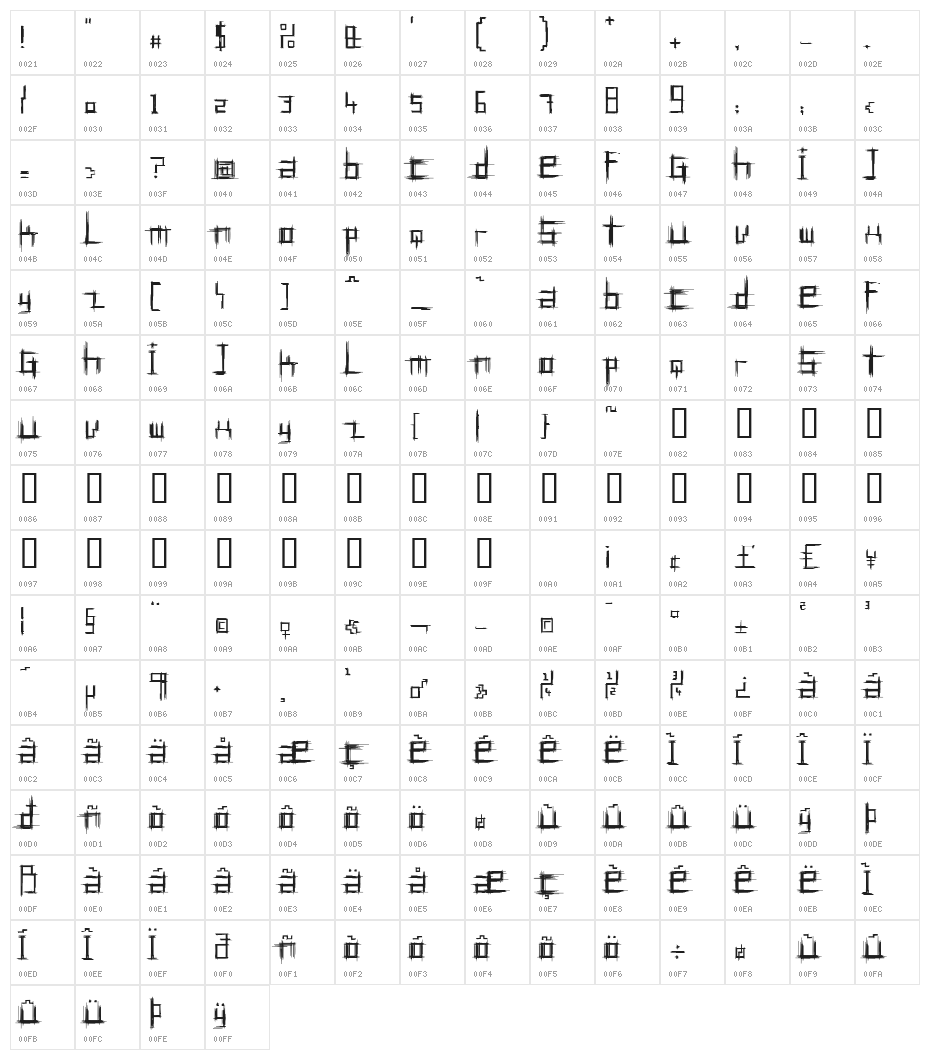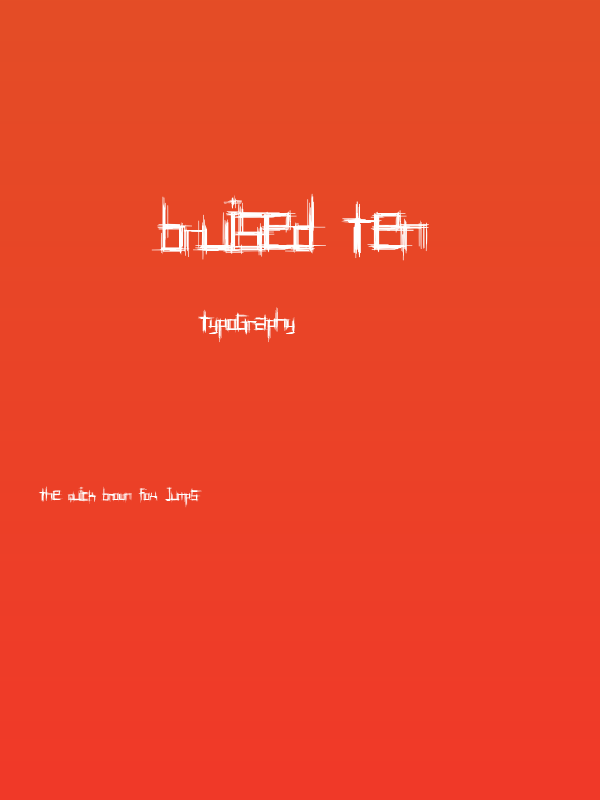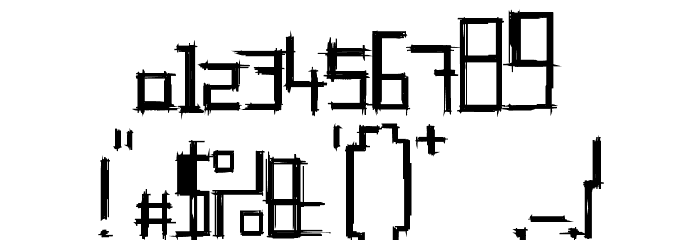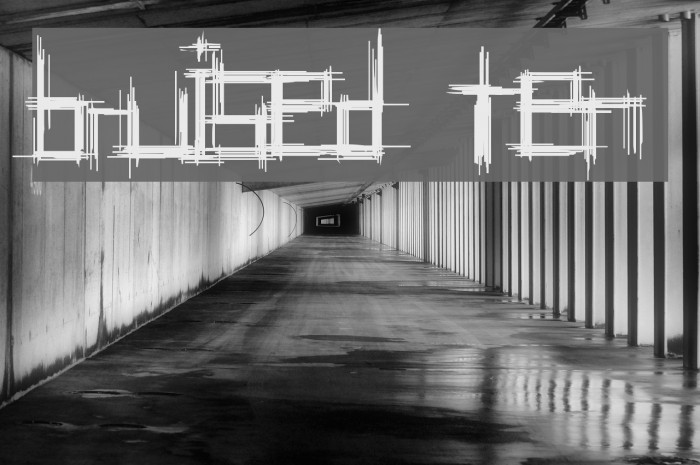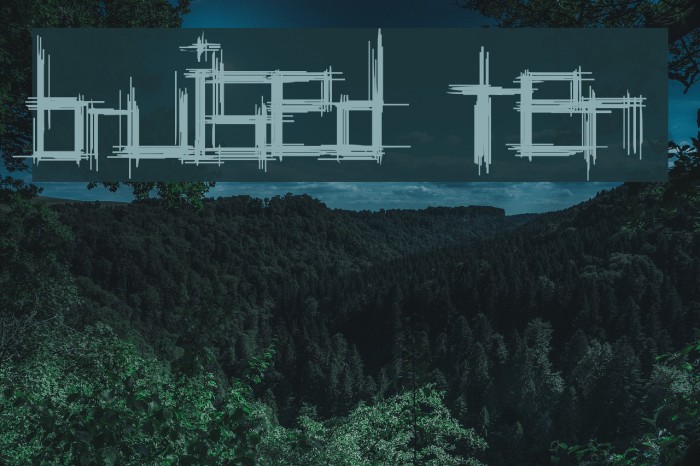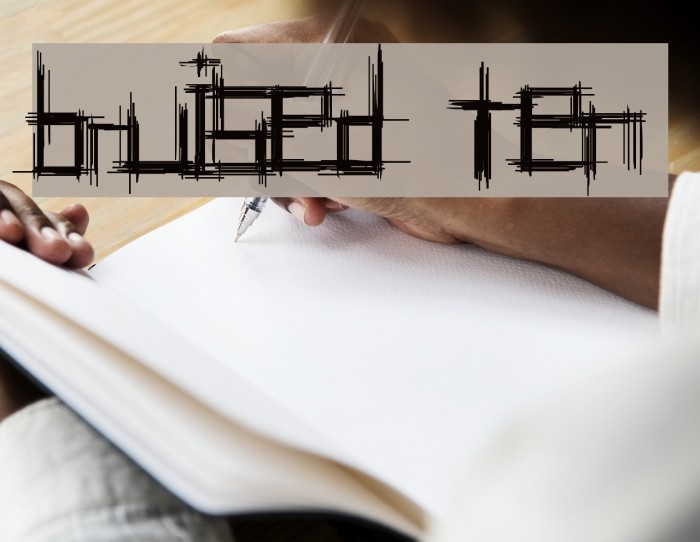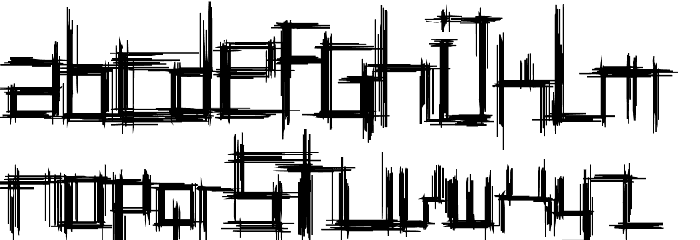
Bruised Ten Font
Bruised Ten Description
This font exhibits a highly distressed and grungy aesthetic, characterized by its rough, sketch-like lines and uneven strokes. The letters appear as if they are hastily drawn with a marker, giving them a raw and edgy feel. The uppercase and lowercase letters maintain a consistent height, contributing to a uniform appearance despite the chaotic line work. Numbers and special characters follow the same rugged style, ensuring cohesion across all elements. This font's unique texture and appearance make it stand out, ideal for projects that require a bold and unconventional look.
| Overall Style | Grunge, Edgy |
| Proposed Projects | Ideal for album covers, street art-inspired designs, edgy posters, and alternative branding. |